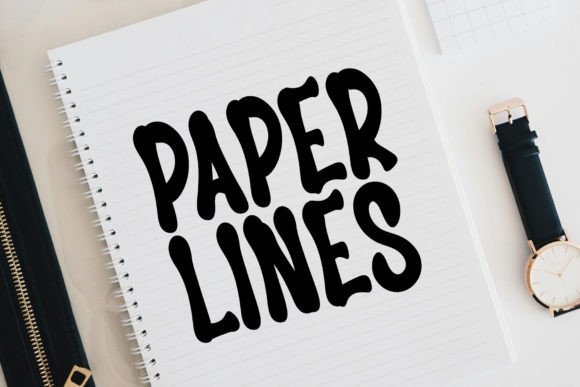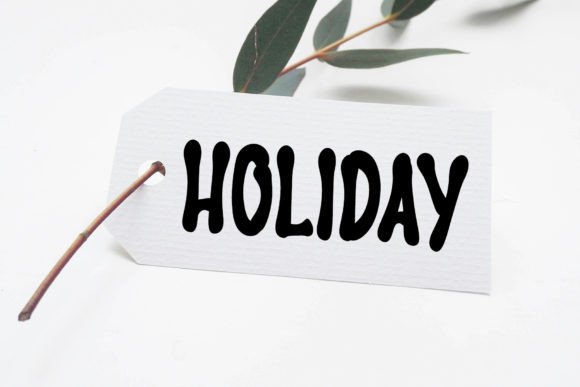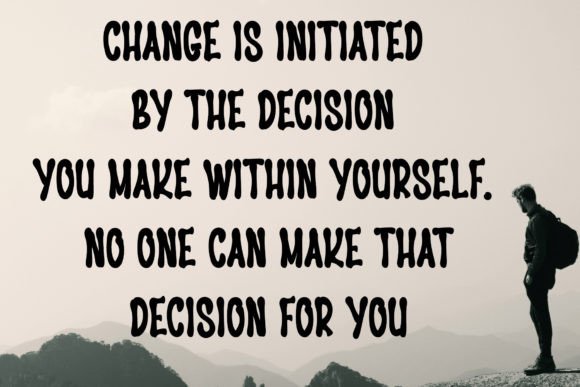
Introduction to Primary Font
Do you remember the rush of excitement when you finally landed your dream design project? The thrill of creating something from scratch, pouring your heart and soul into it, and bringing it to life? For designers, this moment is what makes all the hard work worth it. And, let’s be honest, a great font can make all the difference in making your project stand out. That’s where Primary Font comes in – a powerful, high-quality design resource that’s perfect for adding a bold touch to your creative projects.
Whether you’re working on a sports-inspired design, a movie poster, or a book cover, Primary Font is the perfect tool to elevate your work and grab the attention of your audience. With its transparent background and vibrant feel, this font is a game-changer for designers looking to take their projects to the next level.
Key Features of Primary Font
- High-quality, professional font suitable for various creative projects, including graphic design, web design, and digital art.
- Unique, modern design with a transparent background, allowing for versatility and ease of use in various design applications.
- Supports a wide range of languages, including English, Spanish, French, and many others, making it a great choice for multilingual projects.
Honest Review: Primary Font
As a designer, I’m always on the lookout for high-quality design resources that can elevate my creative projects. Primary Font has caught my attention, and I’m excited to share my honest review with you.
- Primary Font offers a transparent background, which is perfect for creating a subtle, elegant look in my designs.
- The font is highly versatile, making it suitable for a wide range of creative projects, from logos to brochures.
- The font library is relatively small, which may limit my options for specific design projects.
- Some of the font styles may not be as detailed or refined as I would like.
Overall, I’m impressed with Primary Font’s potential, but I wish it offered more extensive font libraries and refined details. If you’re looking for a reliable design resource for your creative projects, Primary Font is definitely worth considering.
Primary Font
Tips for Getting the Most Out of Primary Font
For the best results, use Primary Font in conjunction with a high-quality image or background. You can also experiment with different font sizes and styles to create a unique look. Additionally, consider using a transparent background to make your design more visually appealing.
Primary Font is perfect for creating a logo, branding materials, or marketing materials. It’s also great for designing a website or social media graphics. With its clean and modern design, Primary Font is a versatile font that can be used for a wide range of creative projects.
Alternatives to Primary Font
Open Sans is a popular, high-quality font suitable for creative projects and digital designs. Its clean and modern design makes it perfect for websites, mobile apps, and other digital platforms. When to use: Open Sans is ideal for digital designs that require a clear and readable font. It’s a great alternative to Primary Font when you need a more modern and sleek look.
Comparison: Open Sans is more modern and sleek compared to Primary Font, making it a great choice for digital designs. However, it may not be suitable for print materials or designs that require a more traditional look.